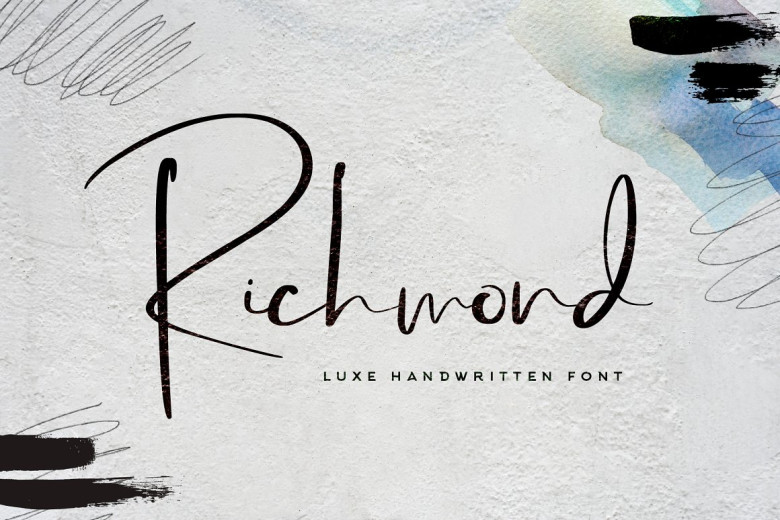
Richmond Font
Richmond can be described as an ink-textured, wet-ink signature script font designed specifically to be used for branding! Perfect for designs, prints, websites and much more – use it anywhere! Every designer needs the perfect signature style font, look no further! Richmond will help make all your designs shine with elegance.
Richmond Luxury Handwritten Font